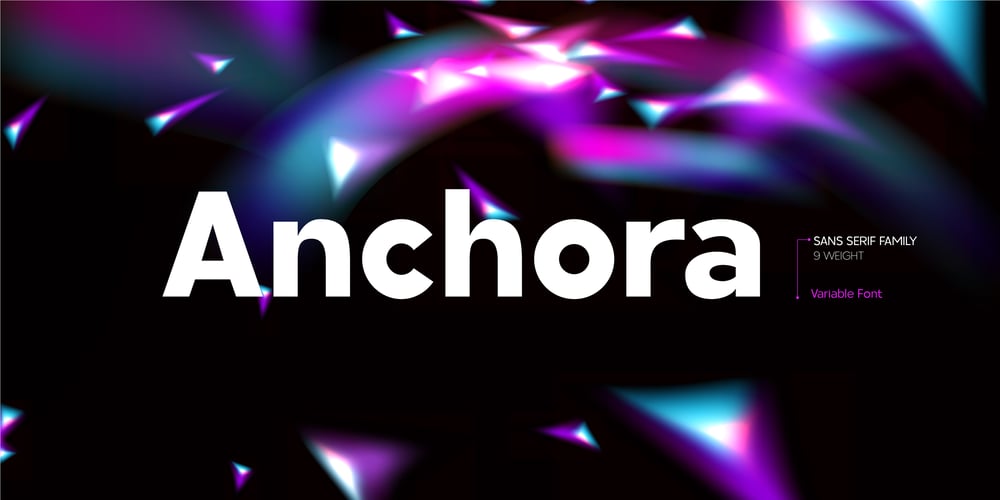
Anchora Font Family was designed by Fatih Kurtcu, Hatice Furunci, Şahsenem Sertkaya, Handenur Aydın, Veysel Özer and published by TFA. Anchora contains 10 styles and family package options. Anchora is a contemporary sans serif font. Its characteristicfeature is that it provides clear text at smaller sizes besideshas a stulistic stance on screen sizes. The font contains LatinCharacters support many languages.